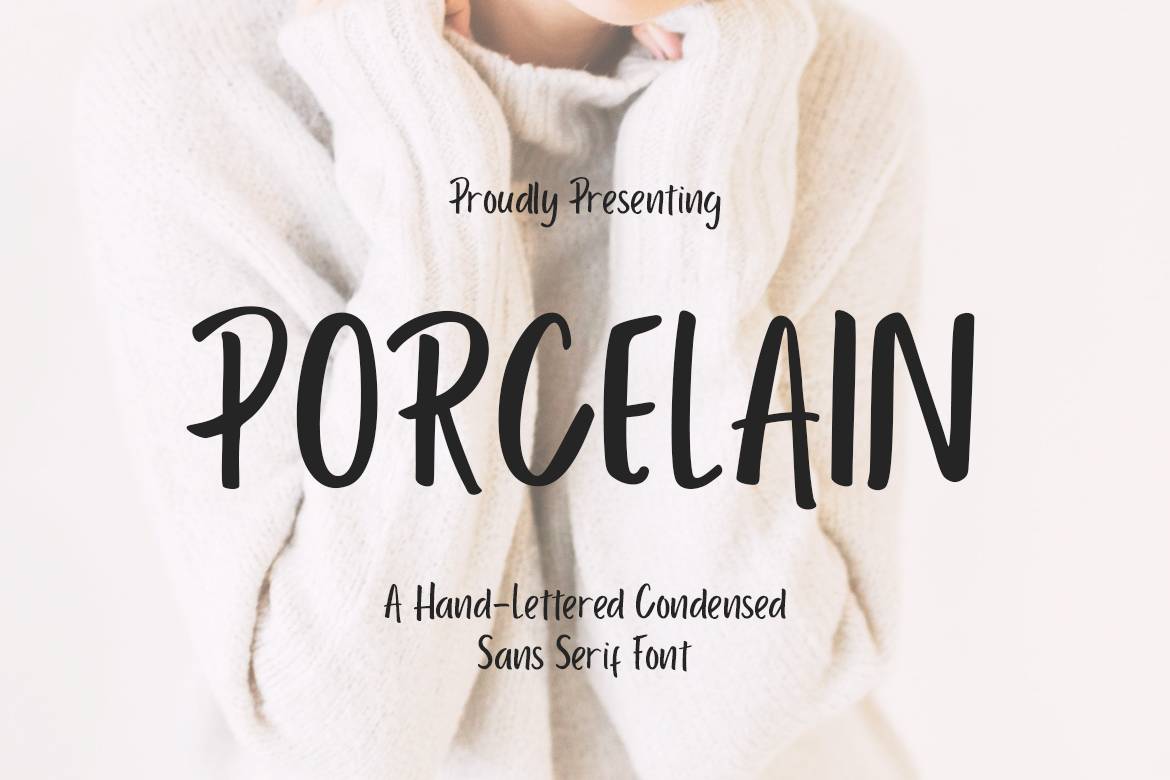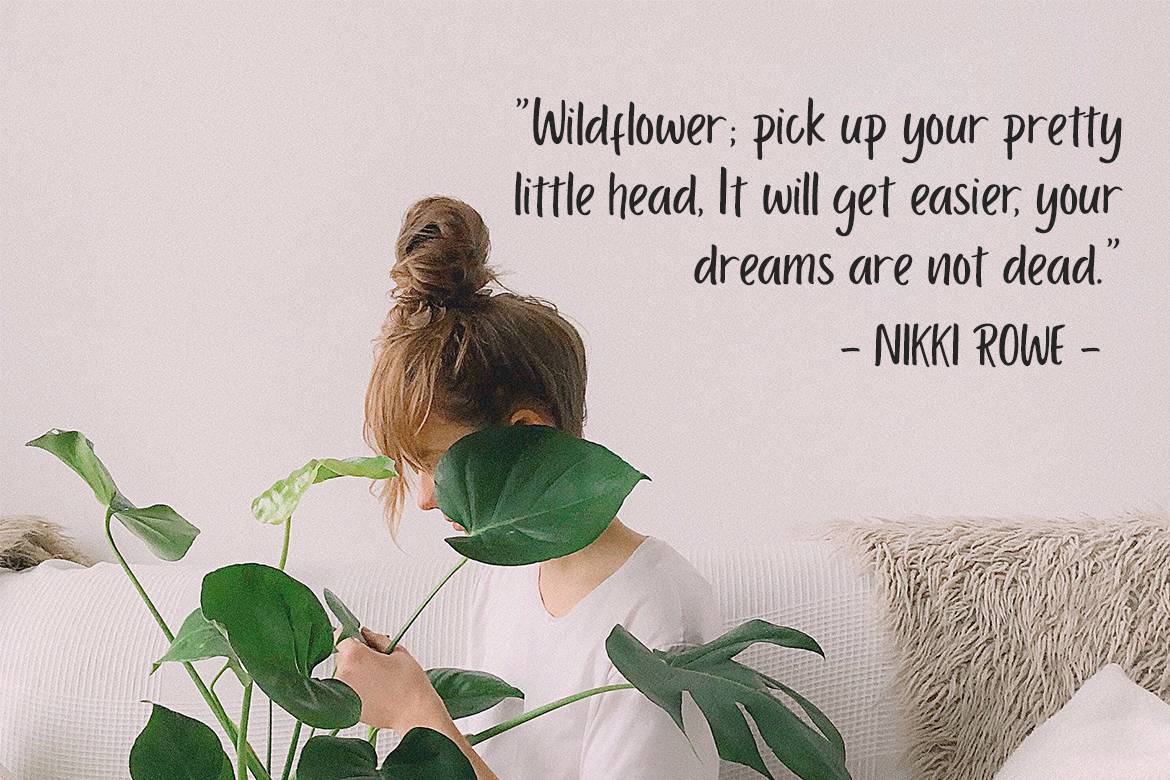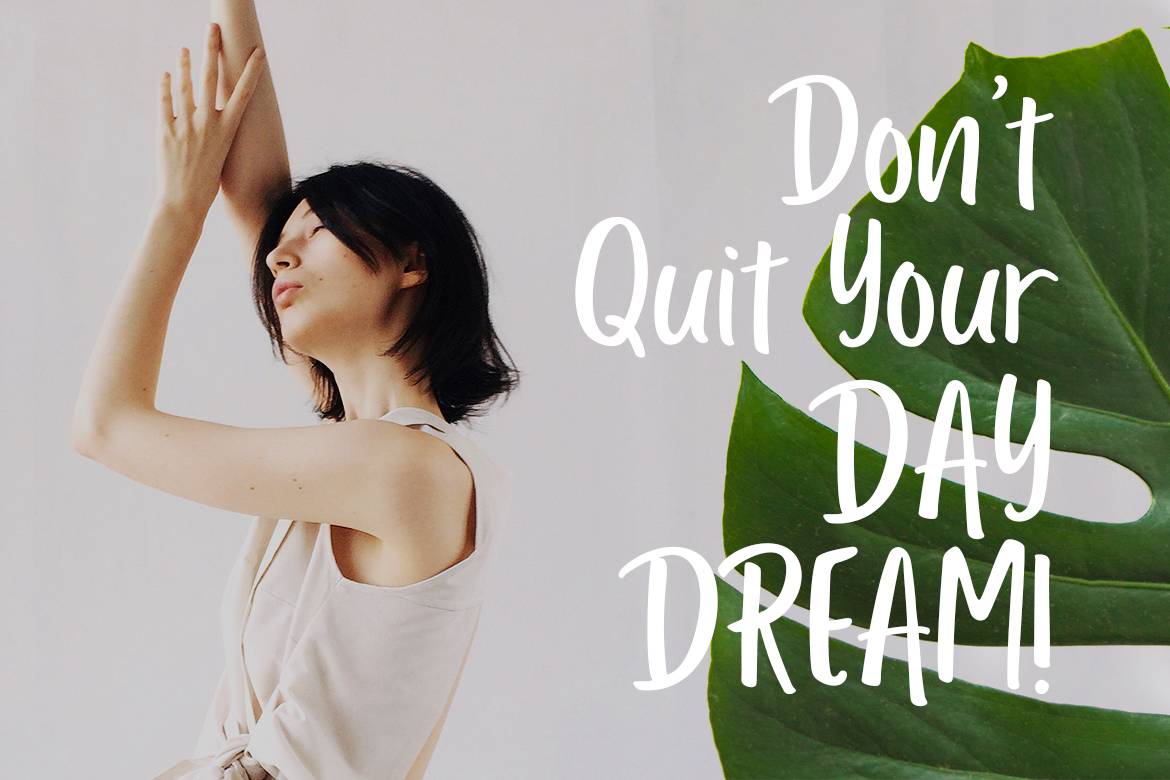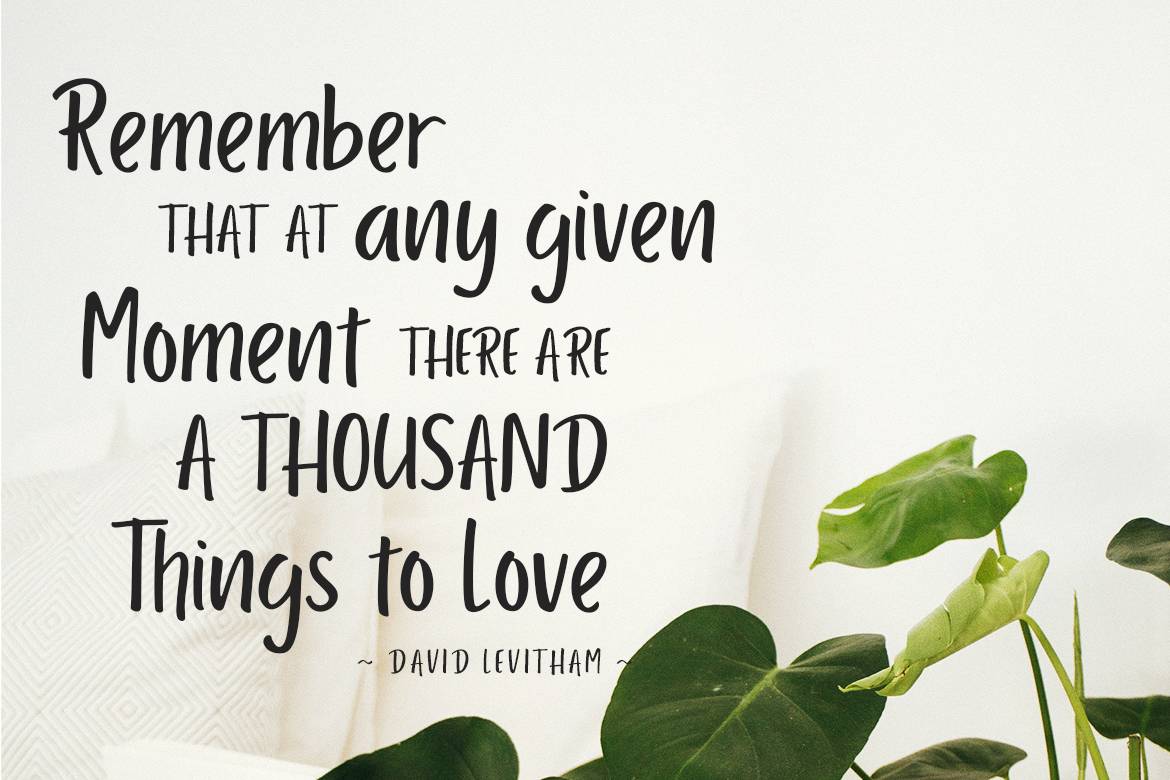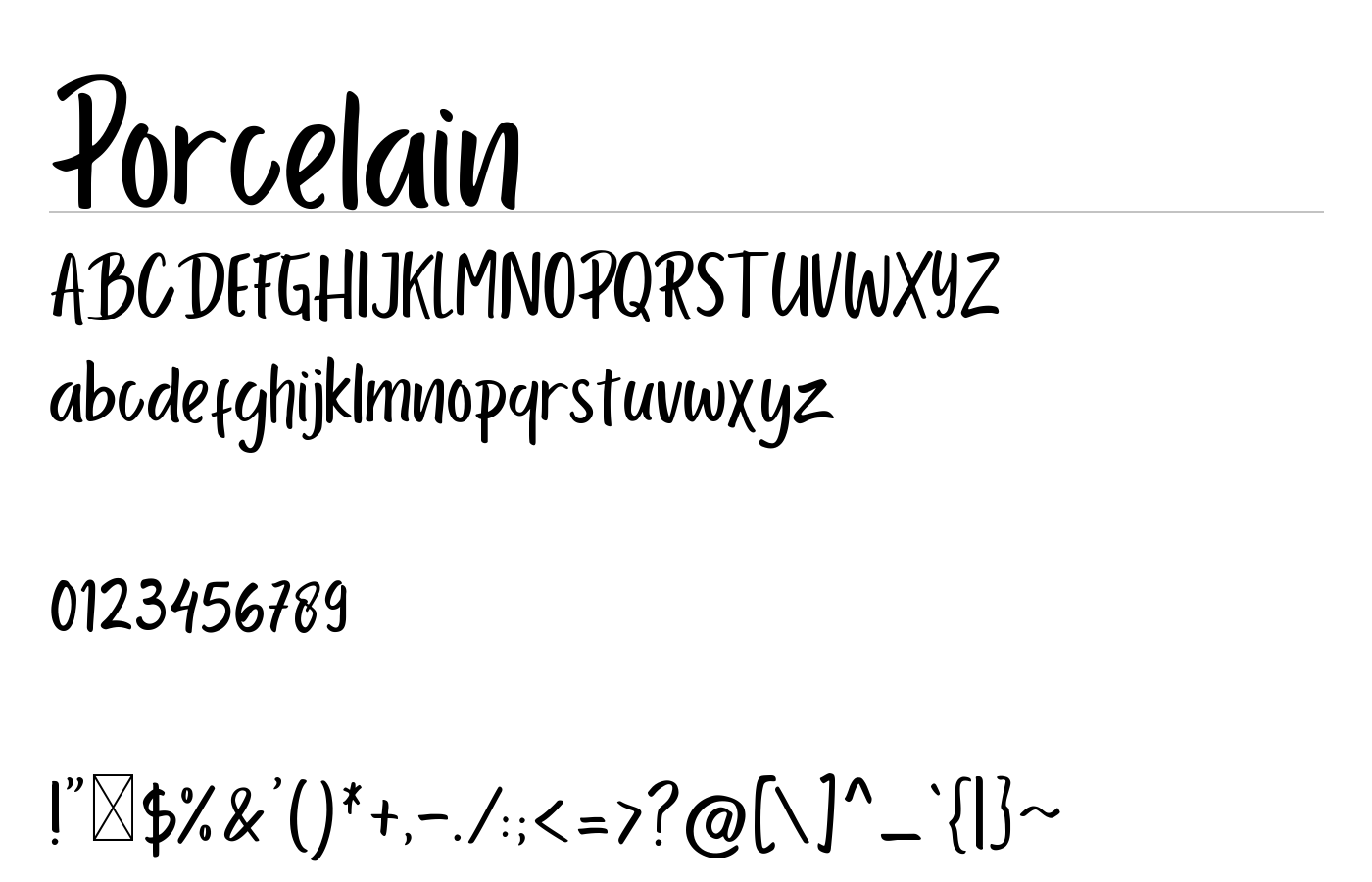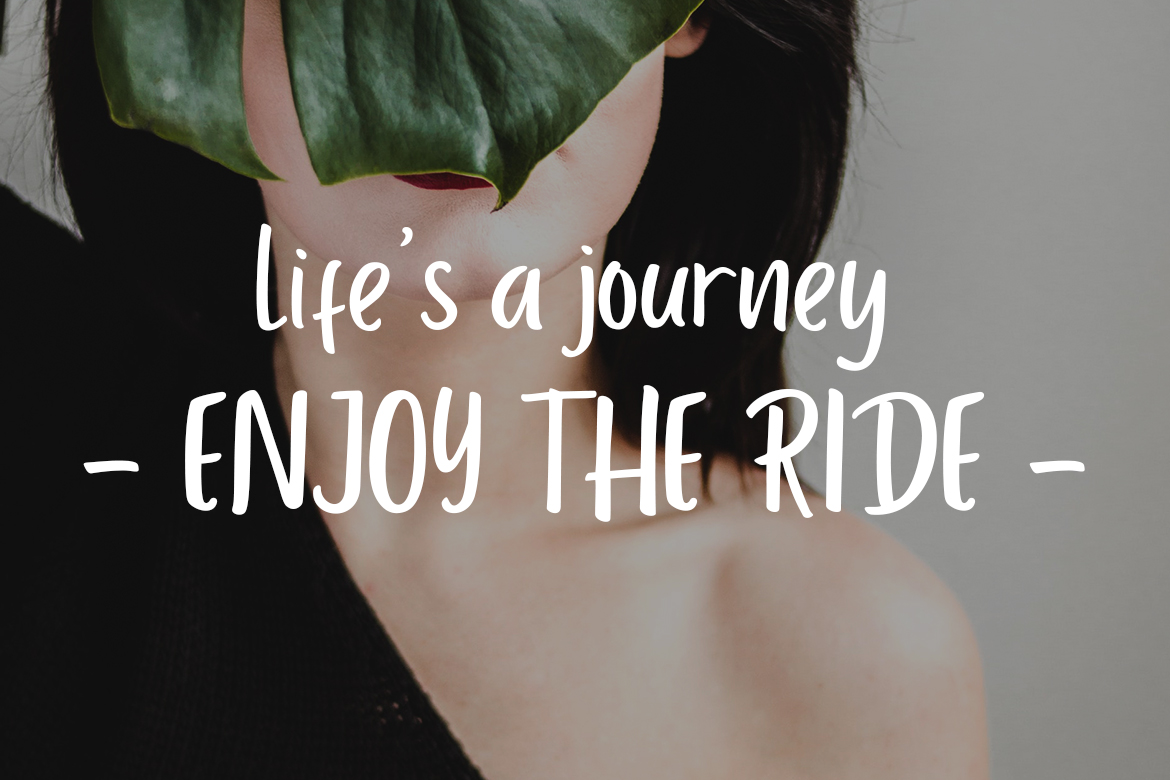
Porcelain is a casual, handwritten-style sans serif font with a friendly and approachable personality. Its tall x-height, slightly uneven strokes, and playful letterforms create an informal yet readable feel, making it ideal for creative branding, invitations, and social media graphics. This font works well where a personal, warm touch is needed, adding charm and expressiveness without sacrificing clarity.
Porcelain
About Porcelain
| Font family | Porcelain |